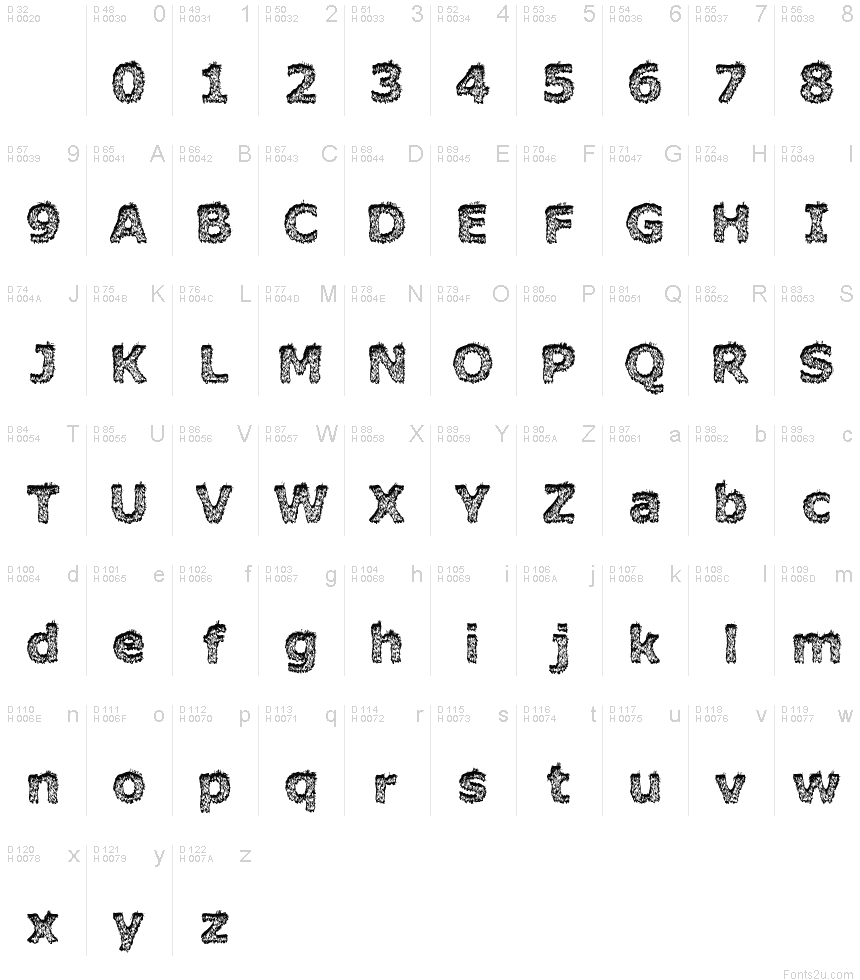
Hairy Monster by Anthony Robinson is a free decorative cartoon font covered in shaggy, inked fur. Its broad letters have uneven edges, tufts along the tops, and dense scratch marks running through their interiors. The effect is cheerfully unruly.
Illustrated monsters, animal mascots, and fuzzy creatures can share the lettering's coat, making it useful for children's book covers, game graphics, and Halloween posters. Toy packaging and party invitations are also a natural fit, especially for younger audiences who will respond to its goofy creature-like shapes and lively surface detail.